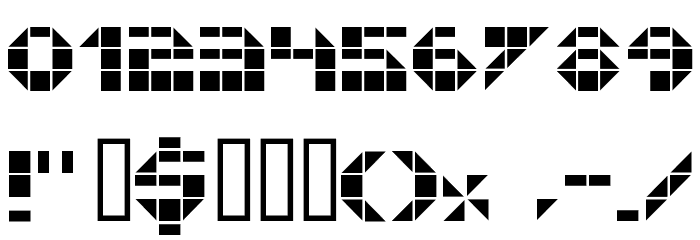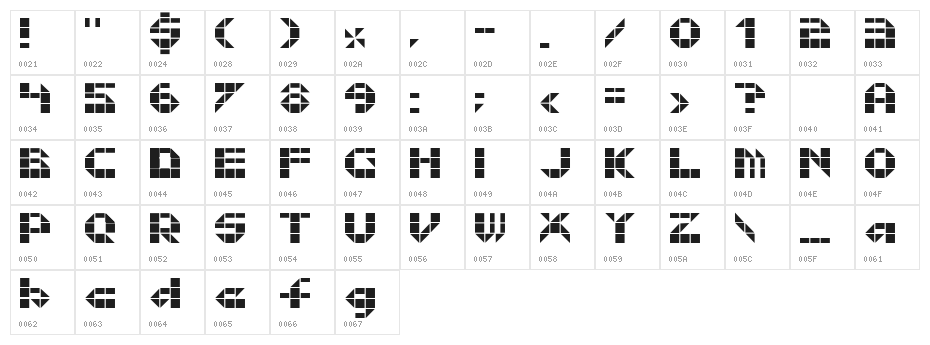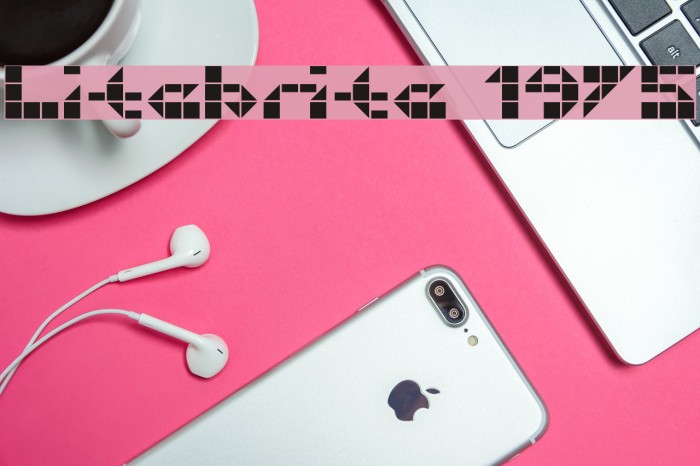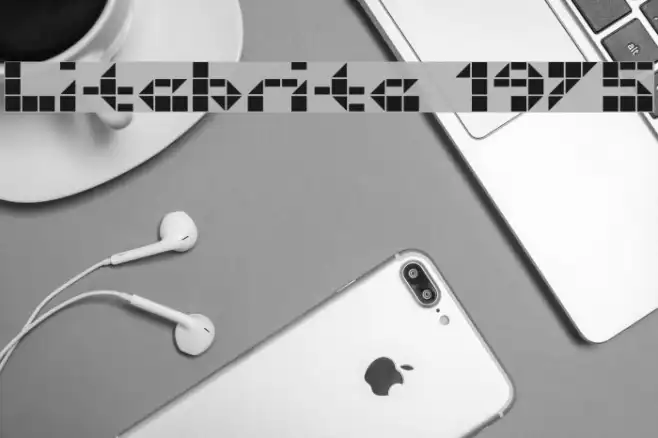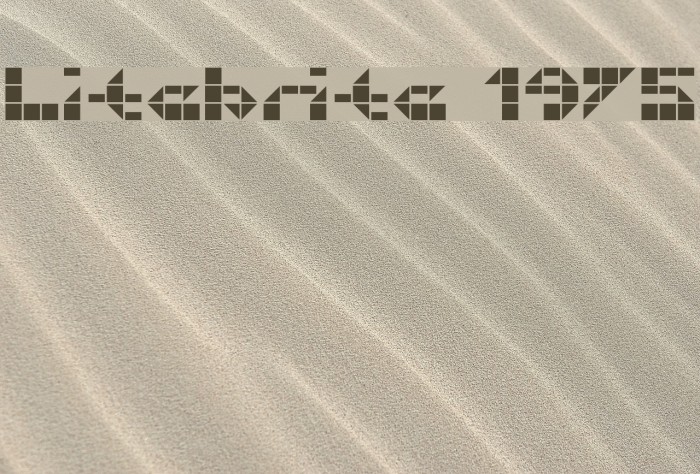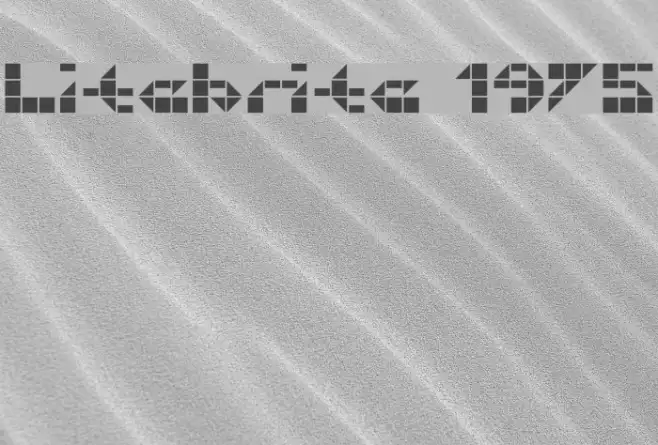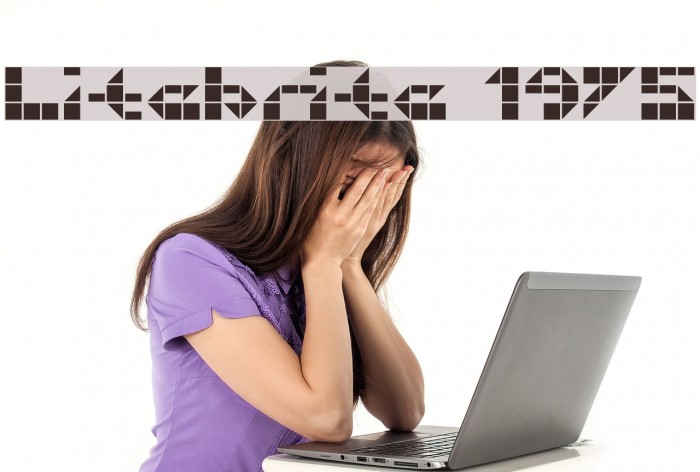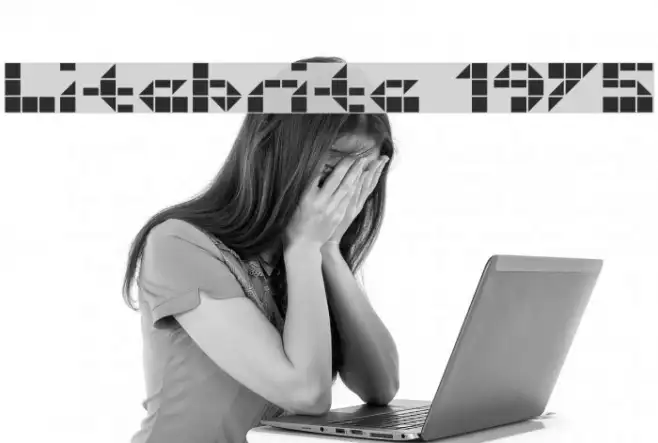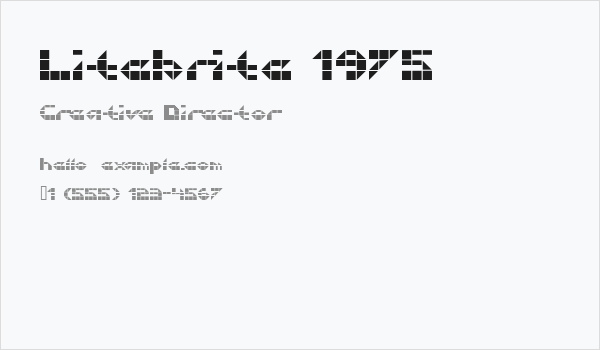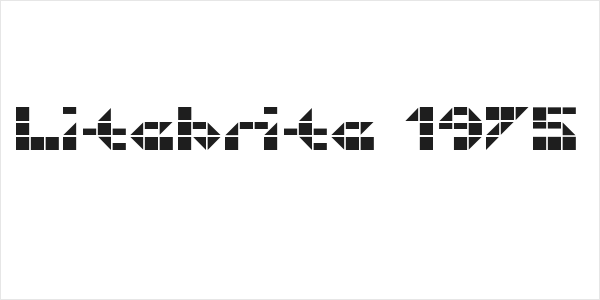
Litebrite 1975 Font
Litebrite 1975 Description
This font features a unique, geometric design that mimics the appearance of a digital display or pixelated screen. Each character is composed of distinct, angular shapes that form a cohesive and modern aesthetic. The uppercase and lowercase letters maintain a consistent style, with sharp edges and a blocky structure. Numbers and special characters follow the same design principles, ensuring uniformity across all elements. This font's bold and striking appearance makes it ideal for projects that require a futuristic or tech-inspired look.
| Proposed Projects | Ideal for digital art, tech branding, video game interfaces, and futuristic designs. |